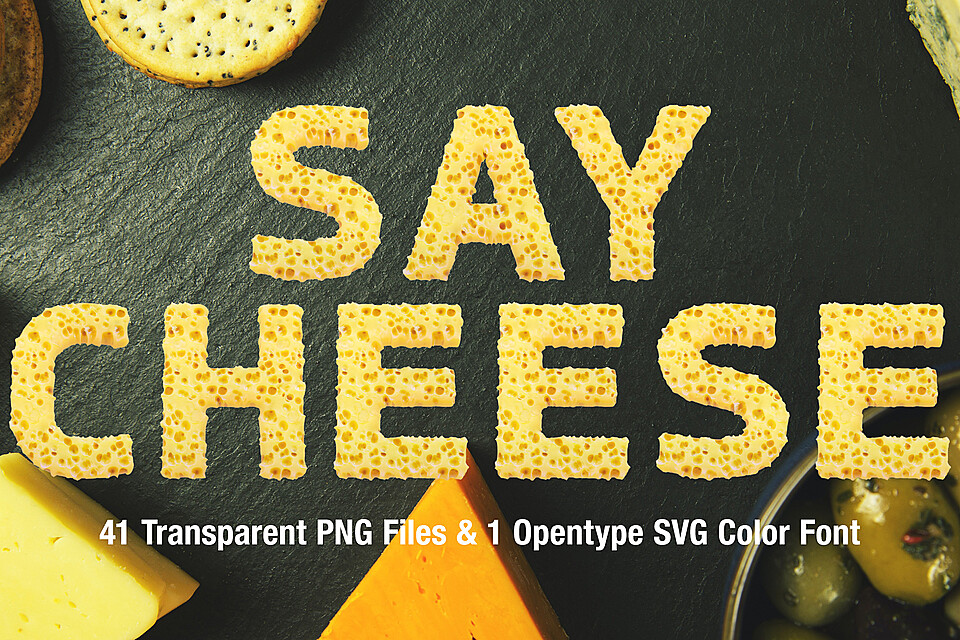
MS Cheese Bitmap Font and PNGs
Each letter is modelled and rendered in a 3D Application, also converted into an Opentype SVG (Color Font)
Basic western uppercase letters
Numbers
Limited Punctuation and Symbols